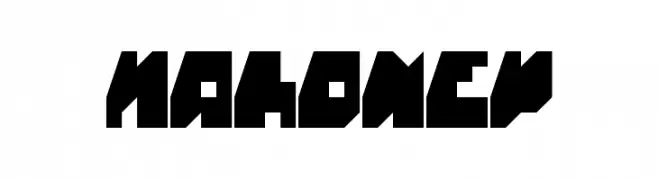
A pixelated, blocky font with a retro digital style.
A bold, geometric font with sharp, angular edges and a modern style.
A bold, geometric font with sharp angles and a modern style.
A bold, geometric font with sharp angles and a futuristic feel.